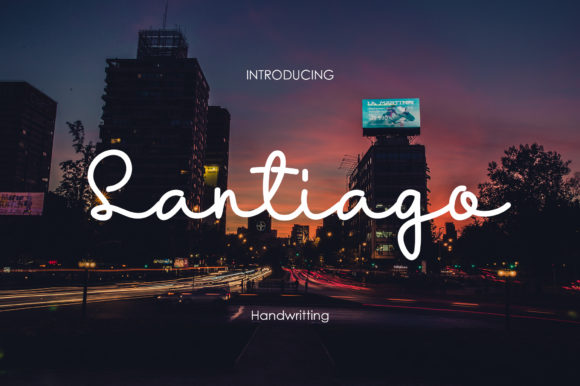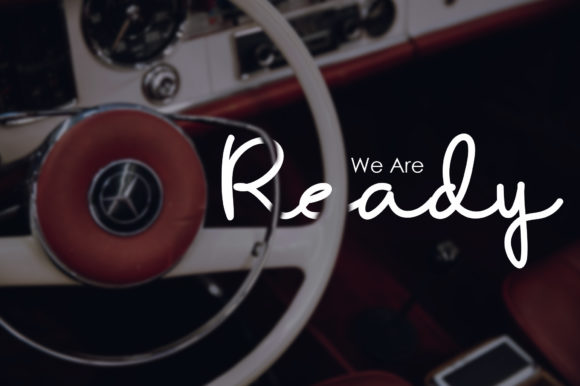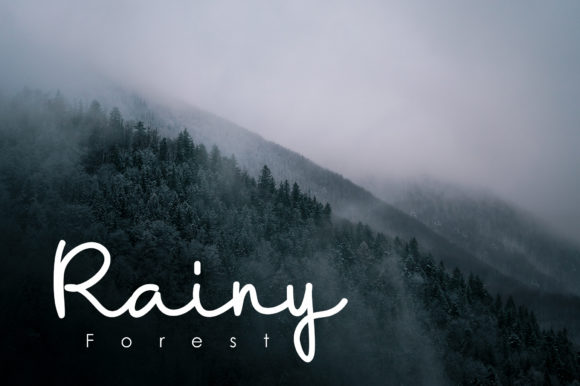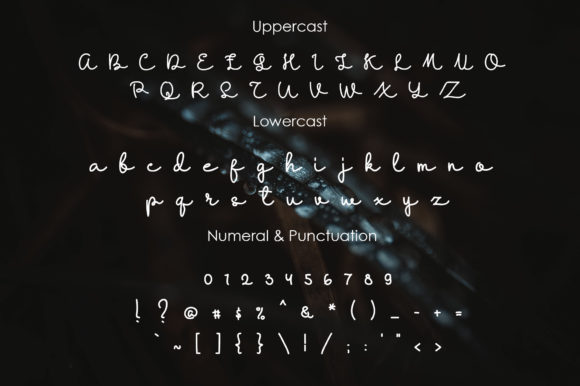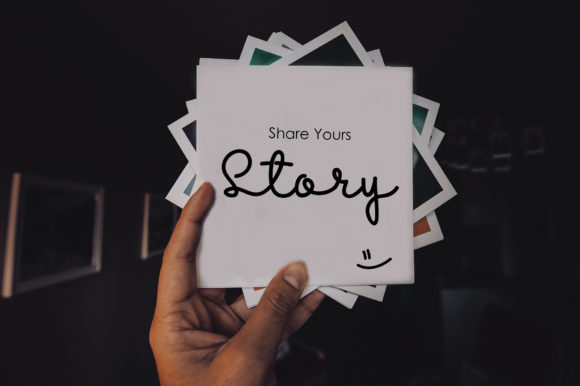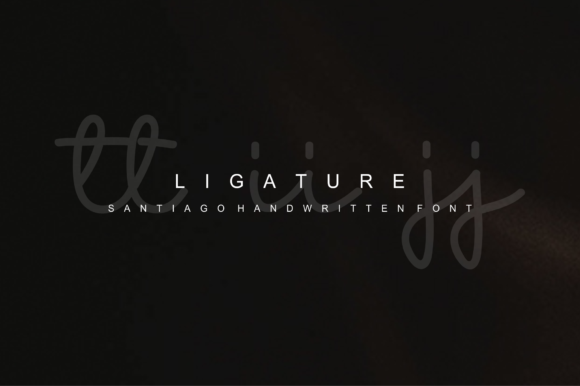
Santiago Font
About Santiago Font
Santiago is a simple, yet stunning handwritten font with a one-of-a-kind charm. It will put a unique spark on any design project.